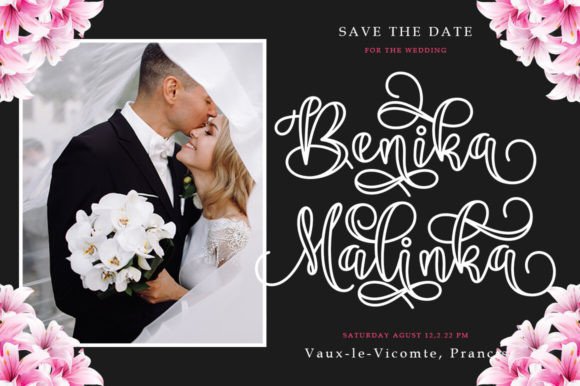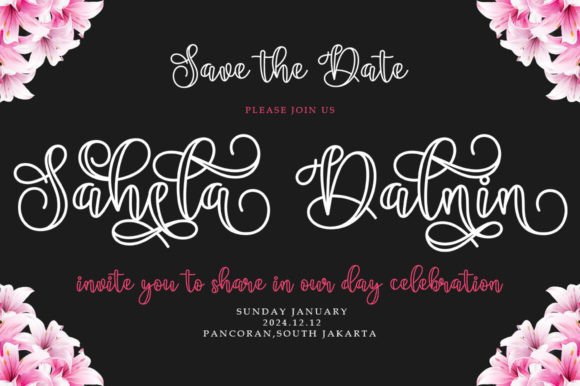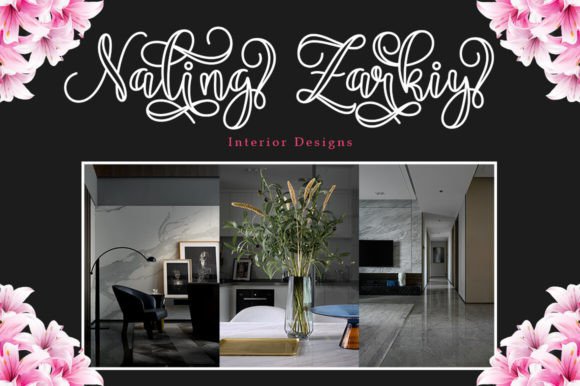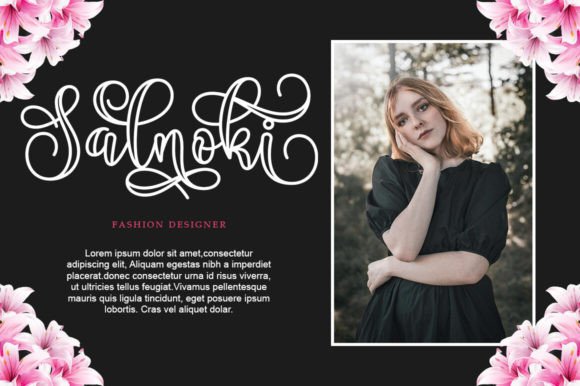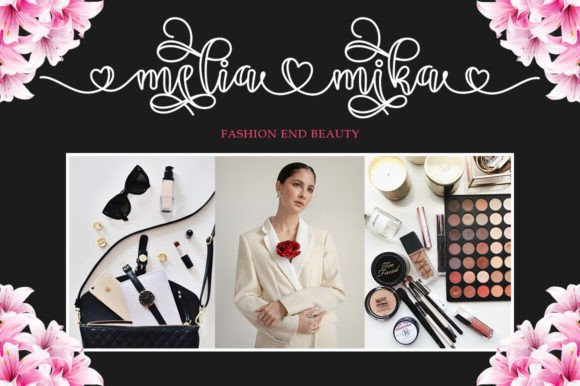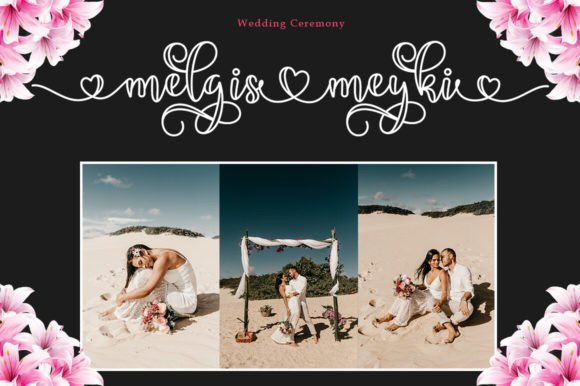
The Perfect Font for Your Creative Masterpiece
Have you ever found yourself stuck in front of a blank page, trying to decide on the perfect font to bring your creative vision to life? We’ve all been there – the blank slate staring back at us, waiting for that spark of inspiration to ignite our imagination. For me, it was a late-night brainstorming session with a cup of coffee and a blank sheet of paper. Suddenly, the words started flowing, and I knew exactly what I needed to make my design truly special – a font that was both elegant and playful.
That’s where Blaling Sweet Font comes in – a simple and bouncy outline calligraphy script that adds a touch of whimsy to any project. Whether you’re creating wedding invitations, branding, logos, or lettering, this font is the perfect addition to your design toolkit. Its PUA encoding makes it easy to access all the amazing glyphs and ligatures, giving you the freedom to experiment and create unique designs that truly stand out.
Key Features of Blaling Sweet Font
- Font Family: Blaling Sweet Font is a unique, high-quality font family designed for various applications, including digital and print media.
- Character Set: Includes a comprehensive character set with over 250 characters, including Latin, Cyrillic, and Greek alphabets, as well as punctuation marks and symbols.
- Size: The font family is available in 6 font sizes: 12pt, 14pt, 18pt, 24pt, 36pt, and 48pt, making it suitable for various applications, from body text to headlines.
- Resolution: Supports high-resolution printing up to 1200 dpi, ensuring crisp and clear text even at large sizes.
- Unique Characteristics: Blaling Sweet Font features a distinctive, cursive design with a touch of elegance and sophistication, making it perfect for creative projects, such as wedding invitations, menus, and logos.
Blaling Sweet Font Review
At first glance, Blaling Sweet Font is a visually appealing font with a mix of elegance and playfulness. It ✨ shines with its unique, handwritten style that can add a personal touch to any design project. The font’s versatility is impressive, and it can be used for a wide range of applications, from branding and advertising to digital products and publications.
However, like any other font, Blaling Sweet Font has its limitations. One of the main concerns is its readability. The font’s complexity can make it difficult to read, especially in smaller sizes or when used in body text. Additionally, the font’s scalability is limited, and it may not be the best choice for large-scale designs or applications where font size needs to be adjusted.
- Works well for branding and advertising projects
- Unique, handwritten style adds a personal touch
- Versatile and can be used for a wide range of applications
- May be challenging to read in smaller sizes or body text
- Limited scalability
Overall, Blaling Sweet Font is a solid choice for designers looking for a unique and playful font to add some personality to their projects. However, it’s essential to be aware of its limitations and use it judiciously to avoid any readability issues.
Practical Application Guide: Blaling Sweet Font
Blaling Sweet Font is ideal for creating eye-catching headings, titles, and logos. Experiment with different font sizes, colors, and combinations to achieve a unique look. Use it sparingly to add emphasis and visual interest to your designs.
Blaling Sweet Font is commonly used for:
– Creating playful and whimsical designs
– Adding a touch of elegance and sophistication
– Designing logos and branding materials
– Creating eye-catching headings and titles
Alternatives to Blaling Sweet Font
Blaling Sweet Font is a unique, cursive font that adds a touch of elegance to any design. However, it may not be the best choice for every project. Here are some alternatives that designers can consider:
Lato is a sans-serif font that is highly legible and versatile. It is a great choice for body text, headings, and titles. Lato is more modern and clean compared to Blaling Sweet Font, making it suitable for a wide range of designs, from corporate to editorial.
Q: What is the recommended font size for using Blaling Sweet Font?
The recommended font size for Blaling Sweet Font is between 12pt and 24pt, depending on the context of your design. For body text, 14pt or 16pt is a good starting point, while headlines and titles can be set to 18pt or 20pt for maximum impact.